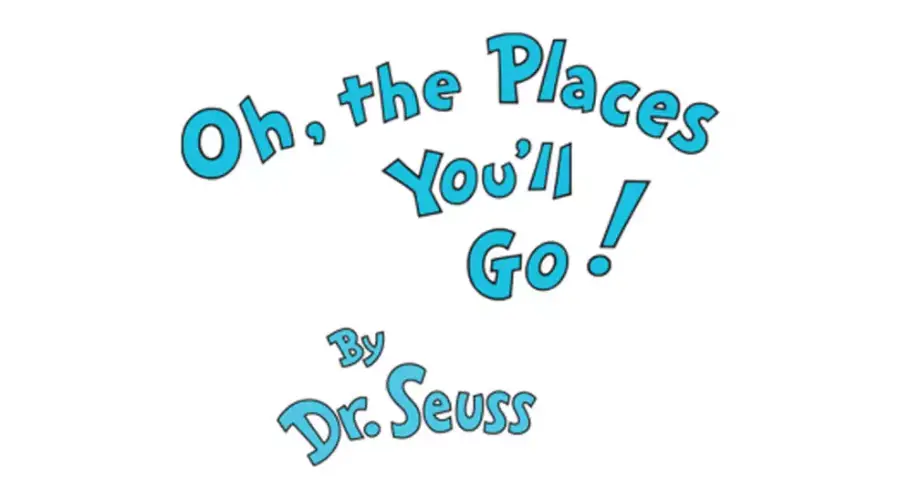
Quick answer: Doctor Soos Bold is an unofficial Seuss-inspired alternative, not the official font of Oh, the Places You’ll Go!. The book cover uses illustrated lettering, and the official Seussville listing does not provide a downloadable typeface credit.
Preview a whimsical Seuss-style alternative
The stored Doctor Soos Bold file can help explore bouncy proportions and cartoon movement in original wording. It is described here as a style alternative because similarity to illustrated lettering is not evidence of an official production font.
Doctor Soos | Unofficial Seuss-inspired alternative
What the visual comparison shows
The cover lettering relies on irregular sizes, curved placement, hand-adjusted shapes, and the surrounding illustration. A fan font can imitate part of that energy while differing in individual letters, punctuation, spacing, and the relationship between words. Exact reconstruction would involve protected artwork beyond the scope of a font.
For an original children’s or graduation title, vary scale sparingly, keep the baseline playful, and use a simple companion face for names, dates, and instructions. Choose a fresh palette and original illustrations so the design has a whimsical mood without pretending to be a Dr. Seuss publication.